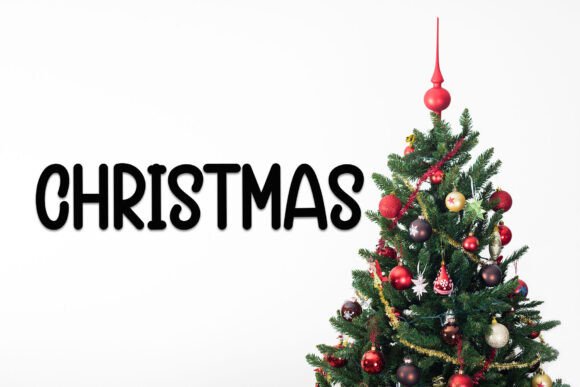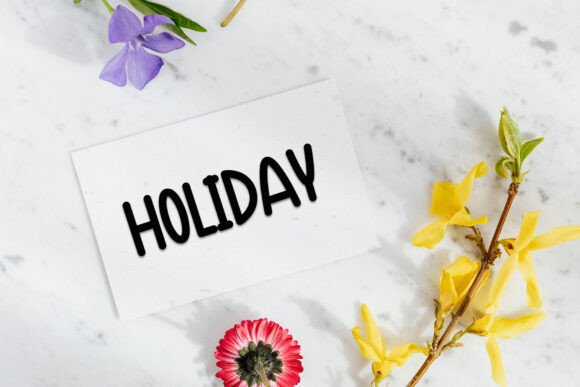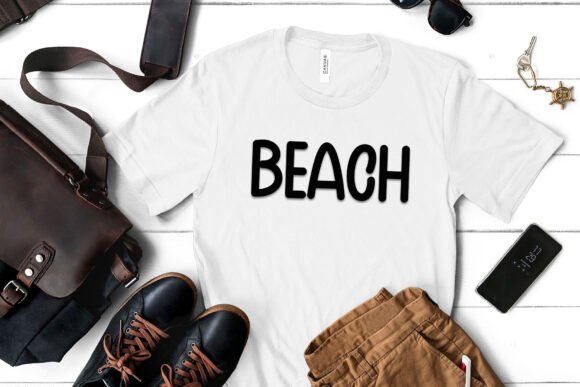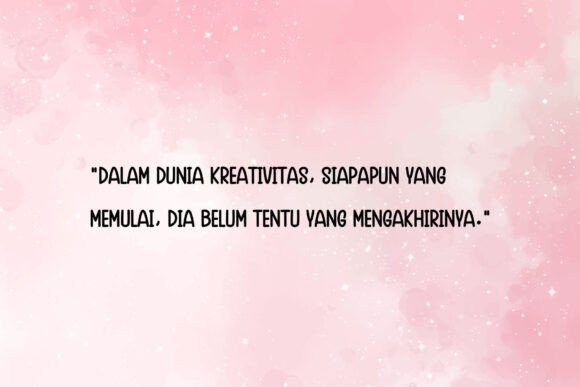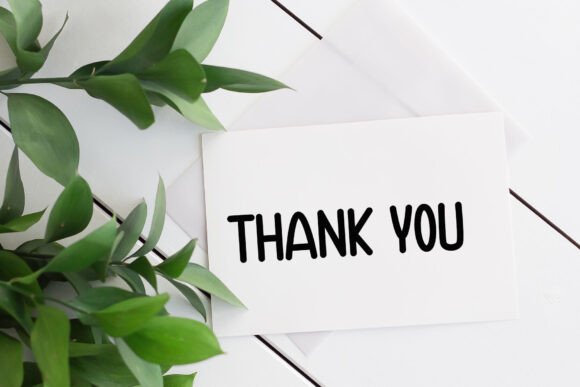
Introduction to Inspirational Font
Have you ever stared at a blank page, struggling to find the right words to express your creativity? That’s where the power of a great font comes in. For designers, the right font can be the missing piece that elevates a project from ordinary to extraordinary. And when it comes to adding a touch of elegance and sophistication, few fonts are as effective as the Inspirational Font.
This trendy handwritten font is inspired by timeless classic calligraphy, exuding a contemporary atmosphere and impeccable form. With its high quality design, it’s the perfect addition to any creative project, whether you’re working on a personal blog, a marketing campaign, or a design resource.
What sets the Inspirational Font apart is its versatility and ease of use. It’s available for free download, making it an accessible design resource for designers of all levels. Plus, its transparent background allows for seamless integration with any background image or color scheme, giving you the freedom to create without limits.
Inspirational Font
- High-quality design: Our Inspirational Font is crafted with precision and care, ensuring a professional and polished look for any creative project.
- Transparent background: This font features a transparent background, allowing you to easily place it over any image or design element.
- Large character set: The Inspirational Font includes a large character set, covering a wide range of languages and characters.
- High-resolution design: The font is designed at a high resolution (300 DPI), making it perfect for large-scale prints, billboards, or other high-resolution applications.
- Perfect for creative projects: The Inspirational Font is ideal for use in creative projects, such as posters, flyers, brochures, and more.
Honest Review: Inspirational Font
I recently had the chance to try out the Inspirational Font, and I must say it’s been a game-changer for my design projects. The font itself is high-quality and has a very unique, creative feel to it.
One of the things that really stood out to me is the transparent background, which makes it super easy to use in any design scenario. Whether I’m working on a logo, poster, or even a presentation, this font fits right in.
Here are some of the key features that I love about the Inspirational Font:
- ✨ Transparent background for easy use in any design scenario
That being said, there are a few limitations to keep in mind:
- ⚠️ Limited character set, which can be a bit restrictive for more complex designs
- ⚠️ May not be as versatile as some other fonts, depending on the specific design requirements
Overall, I’m really impressed with the Inspirational Font, and I think it’s a great addition to any designer’s toolkit. It’s perfect for creative projects where you need a high-quality, unique font that will really make your design stand out.
For the most effective use of the Inspirational Font, keep the design simple and let the font be the focal point. Experiment with different font sizes and colors to create a visually appealing design. Also, consider using the font in combination with other design elements to create a cohesive and inspirational look.
The Inspirational Font is commonly used in motivational posters, social media graphics, and presentation slides. It’s also used in advertising and marketing materials to create a sense of excitement and inspiration. The font’s high quality and versatility make it a valuable design resource for any creative project.
Q: Can I use the Inspirational Font in digital graphics and print materials?
Yes, the Inspirational Font is suitable for use in both digital graphics and print materials. The font is designed to be clear and legible at various sizes and resolutions, making it ideal for use in digital graphics, such as social media graphics, presentations, and websites. For print materials, such as posters, flyers, and business cards, the font can be used at a range of sizes and resolutions to achieve the desired effect.